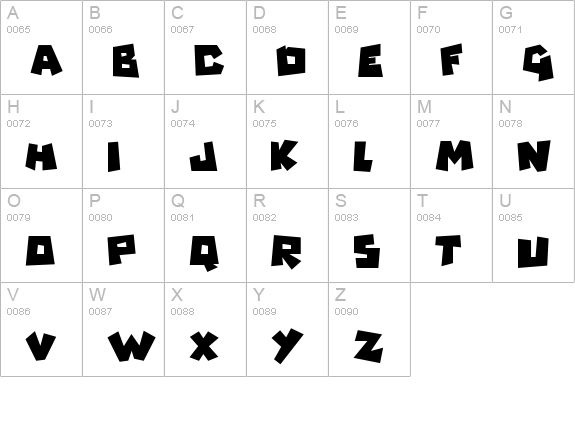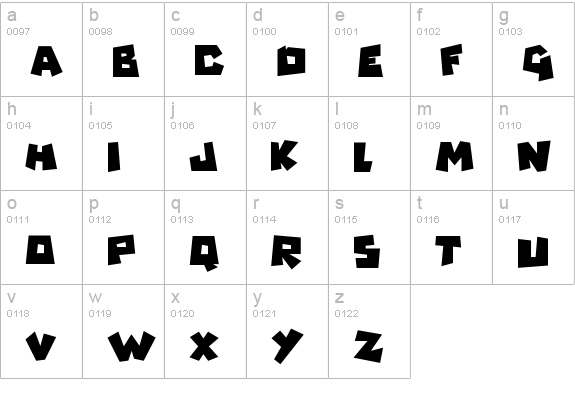
Monsterz is a donationware font in the Fancy > Comic category, designed by Darrell Flood. It has been downloaded 78 times and is available for Windows, Mac and Linux.
Introducing Monsterz font, a playful and quirky typeface that is perfect for adding a touch of fun to your design projects. With its bold and eye-catching characters, Monsterz font is sure to make a statement and capture the attention of your audience. This font is great for children's books, posters, invitations, and more.